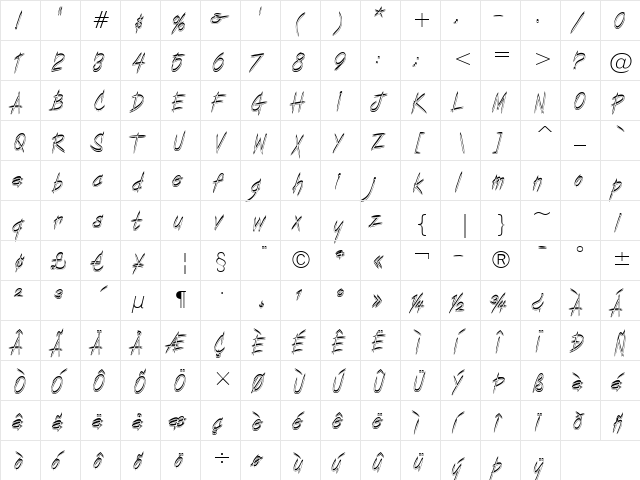
Copa Sharp BTN Shadow Regular
Design Context for Copa Sharp BTN Shadow Typeface
Copa Sharp BTN Shadow brings ornamental detail and strong personality to headlines and identities, where visual impact matters more than quiet functionality.
Font Pairing: Pair with a clean neutral sans-serif for body copy to let Copa Sharp BTN Shadow's character lead without overwhelming the composition.
Pro Tip: Use Copa Sharp BTN Shadow exclusively at display sizes — it was designed to be seen, not read at length. Let a neutral companion handle body copy.